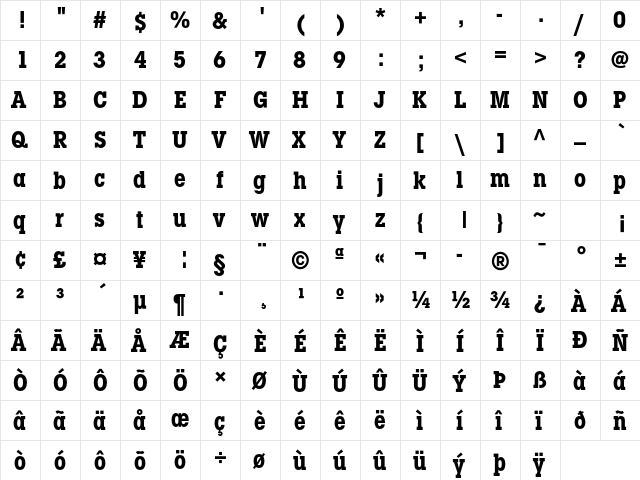
ITC Lubalin Graph Std Bold Condensed Font Preview
| Designer | Herb Lubalin |
Design Context for ITC Lubalin Graph Std Typeface
ITC Lubalin Graph Std offers clean, dependable letterforms without strong stylistic allegiance, making it a practical choice for designers who need flexibility. Its bold stroke weight gives it real presence on the page. The condensed width makes it efficient for tight spaces without sacrificing legibility.
Pro Tip: Pair ITC Lubalin Graph Std with a font of contrasting weight or personality to build a more expressive typographic hierarchy.